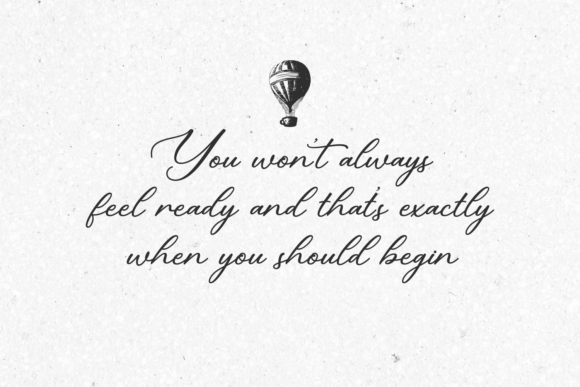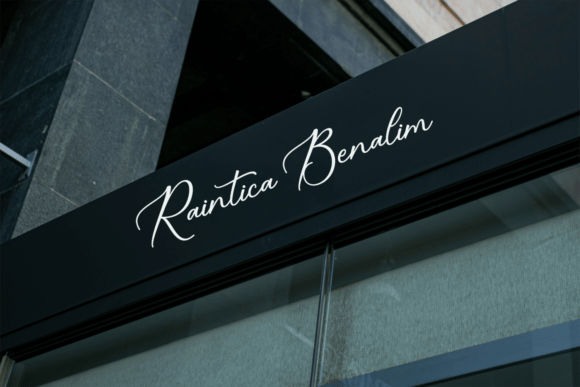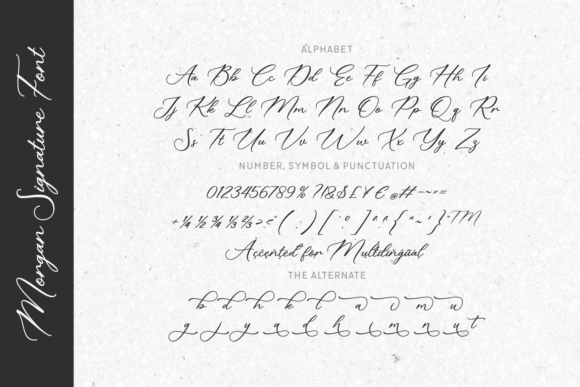
Introduction to Morgan Signature Font
Morgan Signature is a sleek handwritten signature font that combines refined elegance with natural flow.
Ideal for logos, business cards, or fashion-related branding, it conveys professionalism and personal flair in every stroke .
Key Features of Morgan Signature Font
Why Choose Morgan Signature Font?